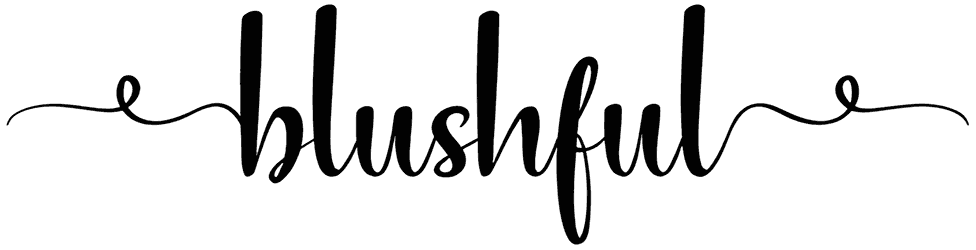
Blushful Font
Blushful is a bright and continuous feminine font with bold and big characters that look like they have been written with a brush to resemble a calligraphy style. We usually see these kinds of fonts in T-shirt designs and summer flyers.
You can also use Blushful for advertising, night shows, and personal blogs. The character set has a complete alphabet set, but the numerical and punctuational characters are off-limits.